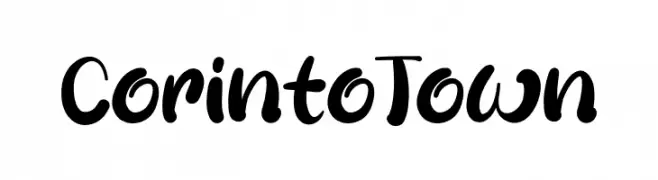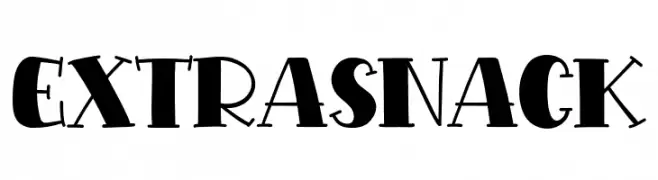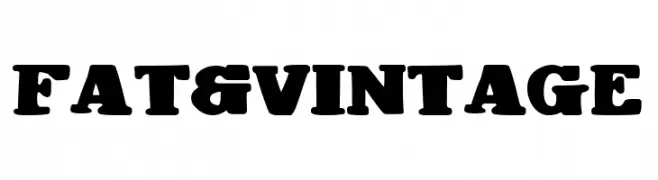
A playful, bold font with rounded, bubble-like characters perfect for creative designs.
A playful, rounded font with a bold and whimsical style.
A bold, playful font with a cartoonish style, perfect for fun and lively designs.
A playful, bold font with rounded edges and a hand-drawn feel.
A playful, bold script font with a handwritten feel.
A playful, bold serif font with exaggerated serifs and a whimsical style.
A bold, vintage-style serif font with thick strokes and a classic feel.
A bold, slab serif font with a vintage and textured appearance.
A bold, playful, and hand-drawn style font with dynamic curves.
A bold, rugged font with a hand-crafted, vintage woodblock style.